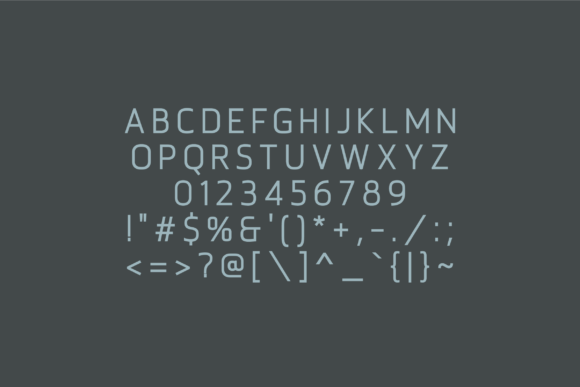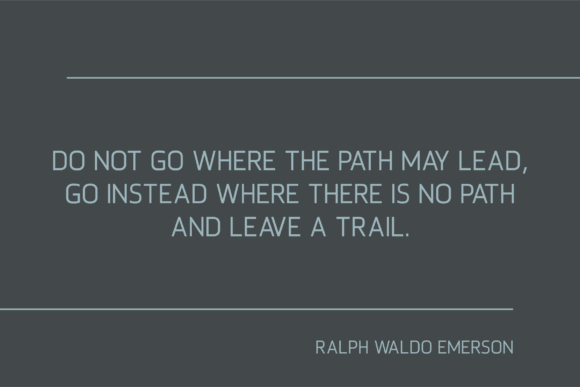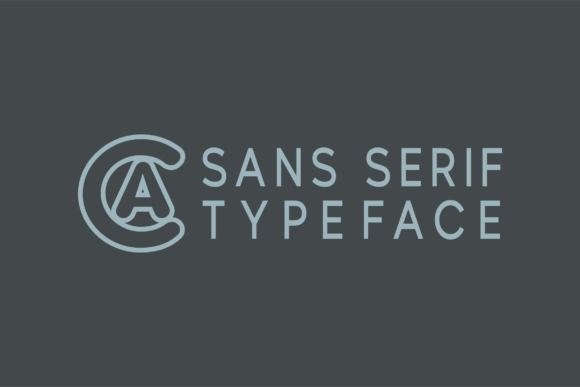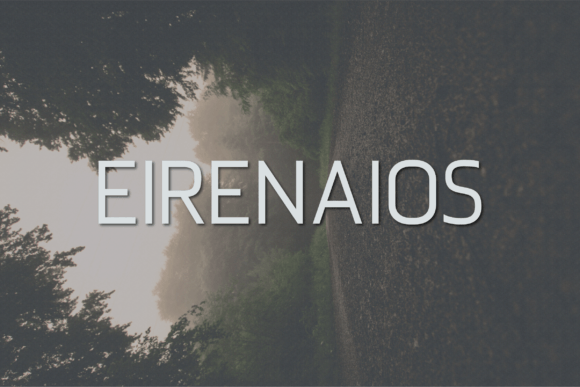
Discover the Elegance of Eirenaios Font: Elevate Your Designs with Sophistication
In the realm of typography, the right font can make all the difference in elevating your design from ordinary to extraordinary. If you’re on the hunt for a typeface that exudes contemporary chic and versatility, look no further than Eirenaios. This stunning sans serif font is meticulously crafted to bring a touch of elegance to a wide array of creative projects, making it a quintessential choice for designers and crafters alike.
Unleash Your Creativity with Eirenaios
Eirenaios is more than just a font; it’s a veritable ensemble designed to cater to the diverse needs of modern designers. At its core, Eirenaios boasts an impressive range of features, including:
- Uppercase Characters: Making a bold statement with your designs has never been easier, thanks to Eirenaios’s beautifully crafted uppercase characters.
- Numerals 0-9: From elegant event invitations to sophisticated advertisements, the numerals in Eirenaios add a dash of class to any project.
- Punctuation and Symbols: With a comprehensive selection of punctuation and symbols, Eirenaios ensures that your designs are not only aesthetically pleasing but also functionally versatile.
Endless Applications for Eirenaios
The true beauty of Eirenaios lies in its adaptability. Whether you’re working on a logo that needs to make a lasting impression, crafting bespoke wedding invitations, or creating standout advertisements, Eirenaios is up to the task. Here are just a few ways you can leverage this incredible font:
- Logos: Create a memorable brand identity with Eirenaios’s clean and modern aesthetic.
- Weddings and Invitations: Add a touch of sophistication to your wedding invitations, save-the-dates, and other event-related materials.
- Headline-Grabbing Quotes: Use Eirenaios to highlight inspirational quotes, testimonials, or any statement you want to stand out.
- Advertisements: Elevate your ad designs with a font that commands attention and exudes professionalism.
- Print Projects: From brochures and flyers to posters and banners, Eirenaios brings a level of elegance to any print project.
- Editorial Pursuits: Make your mark in magazines and editorial content with a font that’s both contemporary and timeless.
Why Choose Eirenaios?
In a world where design trends are constantly evolving, Eirenaios stands out as a versatile and timeless choice. Here are a few reasons why Eirenaios should be at the top of your font wishlist:
- Contemporary and Chic: Eirenaios embodies the perfect blend of modernity and sophistication, making it suitable for a wide range of design projects.
- Versatility: With its extensive character set and range of applications, Eirenaios is a font that can adapt to any creative need.
- Ease of Use: Designed with the user in mind, Eirenaios is easy to integrate into your projects, allowing you to focus on the creative aspect of your work.
Eirenaios is more than just a font; it’s a tool that can elevate your designs to new heights of elegance and sophistication. Whether you’re a professional designer or a crafty DIY enthusiast, Eirenaios offers the perfect blend of style, versatility, and functionality. Explore the world of elegance with Eirenaios and discover a font that can truly make your creations shine.